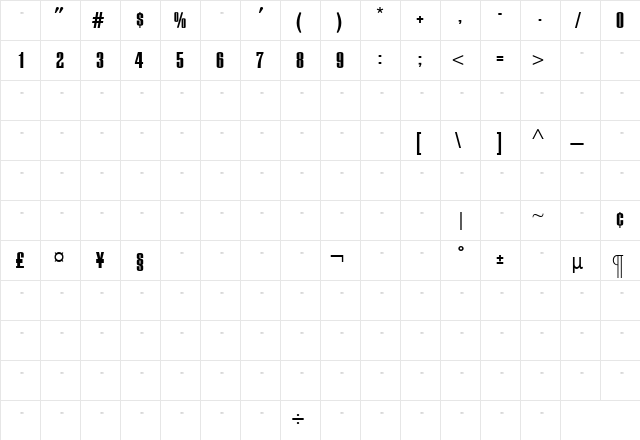
EuropaGrotesqueExtraBoldTab Roman
Design Context for EuropaGrotesqueExtraBoldTab Typeface
EuropaGrotesqueExtraBoldTab is a composed and adaptable typeface that performs quietly and consistently across a wide range of design contexts. Its bold stroke weight gives it real presence on the page.